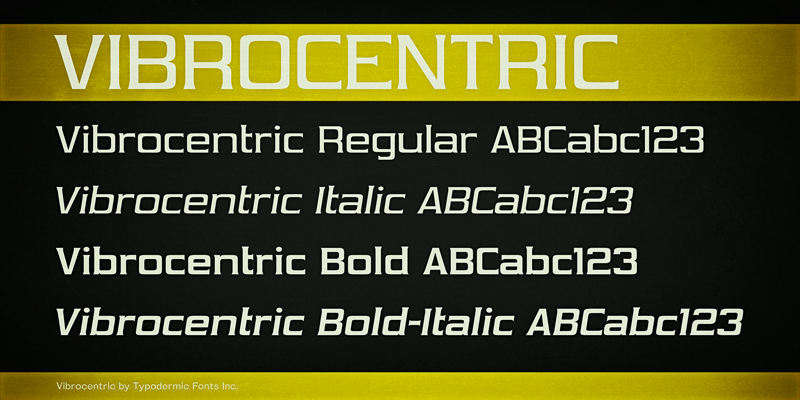
Font name: | Vibrocentric |
Vibrocentric is a sickeningly sweet flare serif monstrosity with curb appeal. These fonts include a license that allows free commercial use: sometimes referred to as a desktop license. This allows you to install the fonts on a computer and use them to create posters, web graphics, game graphics, t-shirts, videos, signs, logos and more. Read the license agreement for details. If you'd like to embed these fonts in an app, ebook, on the web or anything that's not covered by the desktop license agreement, visit the link below. You'll find distributors who offer different types of licenses or you can contact me for help. |